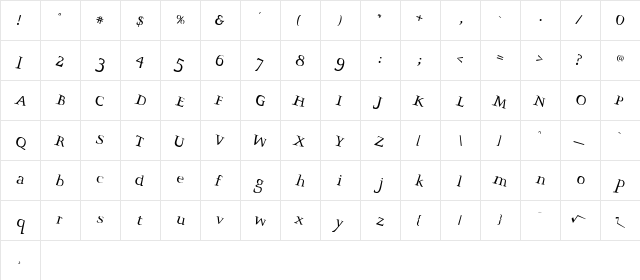
ScoriaLSlanted Regular Font Preview
ScoriaLSlanted Regular
ScoriaLSlanted Regular Font Details
Design Context for ScoriaLSlanted Typeface
ScoriaLSlanted offers clean, dependable letterforms without strong stylistic allegiance, making it a practical choice for designers who need flexibility. The dynamic lean of this cut emphasises speed and emphasis in any layout.
Pro Tip: Try ScoriaLSlanted for annotation and caption copy alongside an upright companion — the contrast in angle creates a dynamic but ordered typographic system.